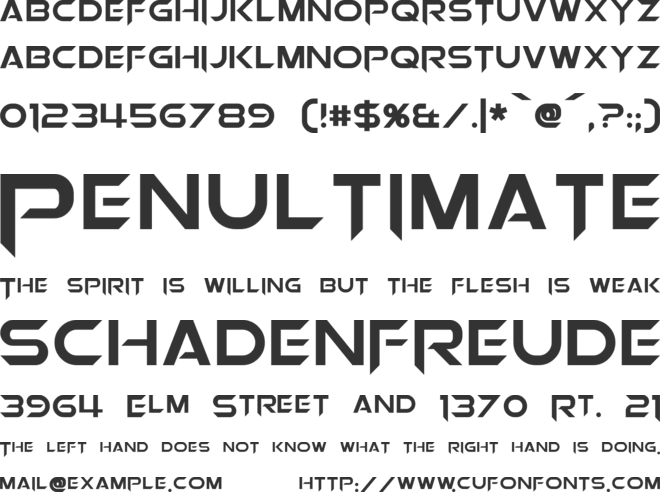
Orion Pax Font Family
Neale Davidson
This is a techno-style font based on the "Robots in Disguise" logo from Hasbro's 2012 Transformers toyline. This font includes accented characters, the Euro, and other European glyphs. Includes bold and italic versions.
- Added OE and Per-Thousand glyphs
- Kerning cleanup